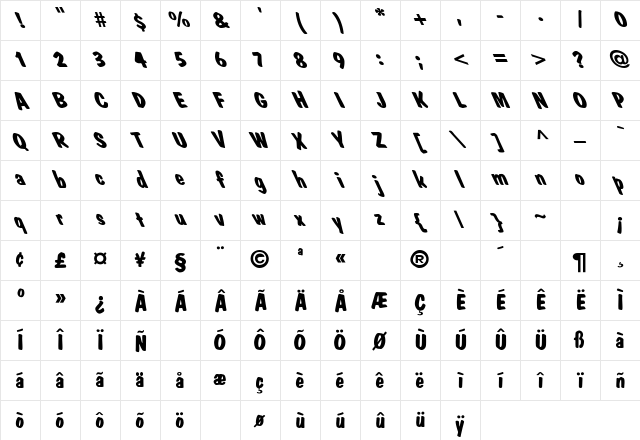
Complete Dom Casual-Extreme Lefty Regular glyph index. Displaying only characters natively supported by Dom Casual-Extreme Lefty Regular font.
Dom Casual-Extreme Lefty is a composed and adaptable typeface that performs quietly and consistently across a wide range of design contexts.